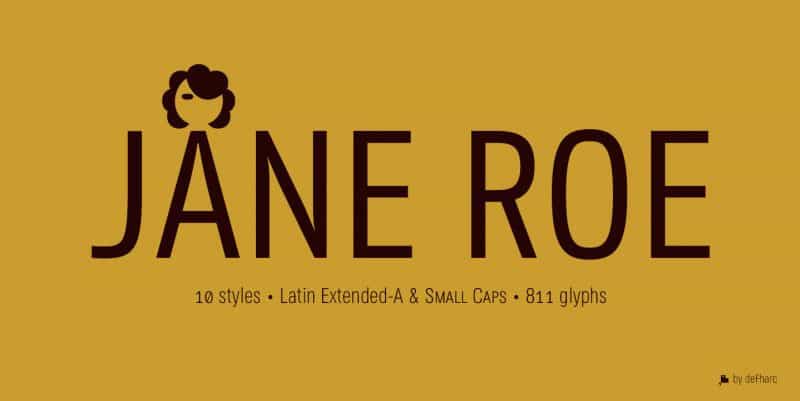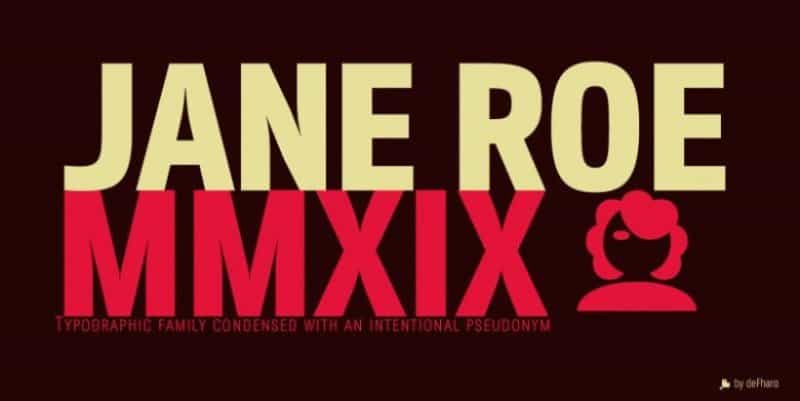
Jane Roe is a family of 10 Sans Serif condensed fonts with geometric construction and neo-Gothic style, this friendly typography has the maximum readability for any size texts be it printing or screen. It can also be used in signage, headlines and where you need to save space horizontally.